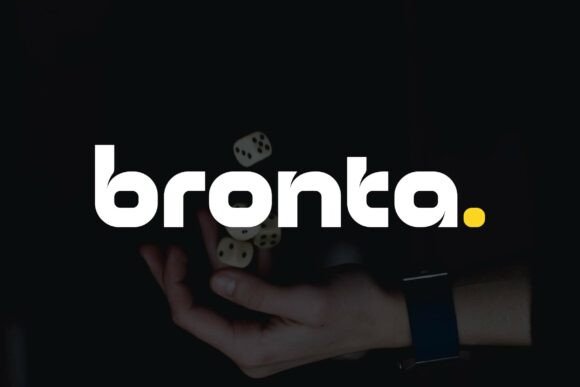
Bronta Font: The Ultimate Choice for Powerful and Memorable Logos
In the world of graphic design, fonts play a crucial role in creating a lasting impression. A well-chosen font can elevate a brand’s identity and make it stand out from the competition. One such font that has gained popularity among designers is Bronta, a clean and bold sans serif font designed specifically for creating powerful and memorable logos.
What is Bronta Font?
Bronta is a geometric sans serif font that boasts a modern and professional look. Its clean lines, sharp edges, and balanced proportions make it an ideal choice for designers looking to create stunning logos, branding materials, and editorial titles. The font’s geometric structure gives it a unique and distinctive appearance that sets it apart from other fonts.
Key Features of Bronta Font
So, what makes Bronta font so special? Here are some of its key features:
- Geometric Structure: Bronta’s geometric structure gives it a modern and sleek look that works perfectly for brands looking to establish a strong online presence.
- Sharp Edges: The font’s sharp edges add a touch of sophistication and elegance, making it suitable for high-end brands.
- Balanced Proportions: Bronta’s balanced proportions ensure that the font looks great in various sizes and resolutions, from website headers to social media graphics.
- Clean and Bold: The font’s clean and bold design makes it easy to read and understand, even at small sizes.
Use Cases for Bronta Font
Bronta font is incredibly versatile and can be used in various design projects, including:
- Logo Design: Bronta is specifically designed for creating powerful and memorable logos that make a lasting impression.
- Branding: The font’s modern and professional look makes it perfect for branding materials, such as business cards, brochures, and letterheads.
- Packaging: Bronta’s clean and bold design makes it suitable for packaging designs, such as product labels and boxes.
- Website Headers: The font’s geometric structure and balanced proportions make it perfect for website headers and titles.
- Editorial Titles: Bronta’s sharp edges and clean lines make it suitable for editorial titles, such as magazine and newspaper headlines.
- Social Media Graphics: The font’s bold and modern design makes it perfect for social media graphics, such as Facebook and Twitter headers.
Benefits of Using Bronta Font
So, why should you choose Bronta font for your design projects? Here are some benefits of using Bronta:
- Unique and Memorable: Bronta’s geometric structure and sharp edges make it a unique and memorable font that can help your brand stand out.
- Modern and Professional: The font’s modern and professional look makes it perfect for brands looking to establish a strong online presence.
- Versatile: Bronta is incredibly versatile and can be used in various design projects, from logos to social media graphics.
- Easily Readable: The font’s clean and bold design makes it easy to read and understand, even at small sizes.
Tips for Using Bronta Font
Here are some tips for using Bronta font effectively:
- Use it Boldly: Bronta font is designed to make a statement, so use it boldly and confidently.
- Experiment with Colors: The font’s geometric structure and sharp edges make it perfect for experimenting with different colors and gradients.
- Pair it with Other Fonts: Bronta can be paired with other fonts to create a unique and memorable typography.
- Use it Consistently: Use Bronta font consistently across all your design projects to establish a strong brand identity.
In conclusion, Bronta font is a powerful and memorable font that can elevate your brand’s identity and make it stand out from the competition. Its geometric structure, sharp edges, and balanced proportions make it a modern and professional font that works perfectly for logos, branding, packaging, website headers, editorial titles, and social media graphics. With its versatility, readability, and unique design, Bronta font is an excellent choice for designers looking to create stunning designs that leave a lasting impression.